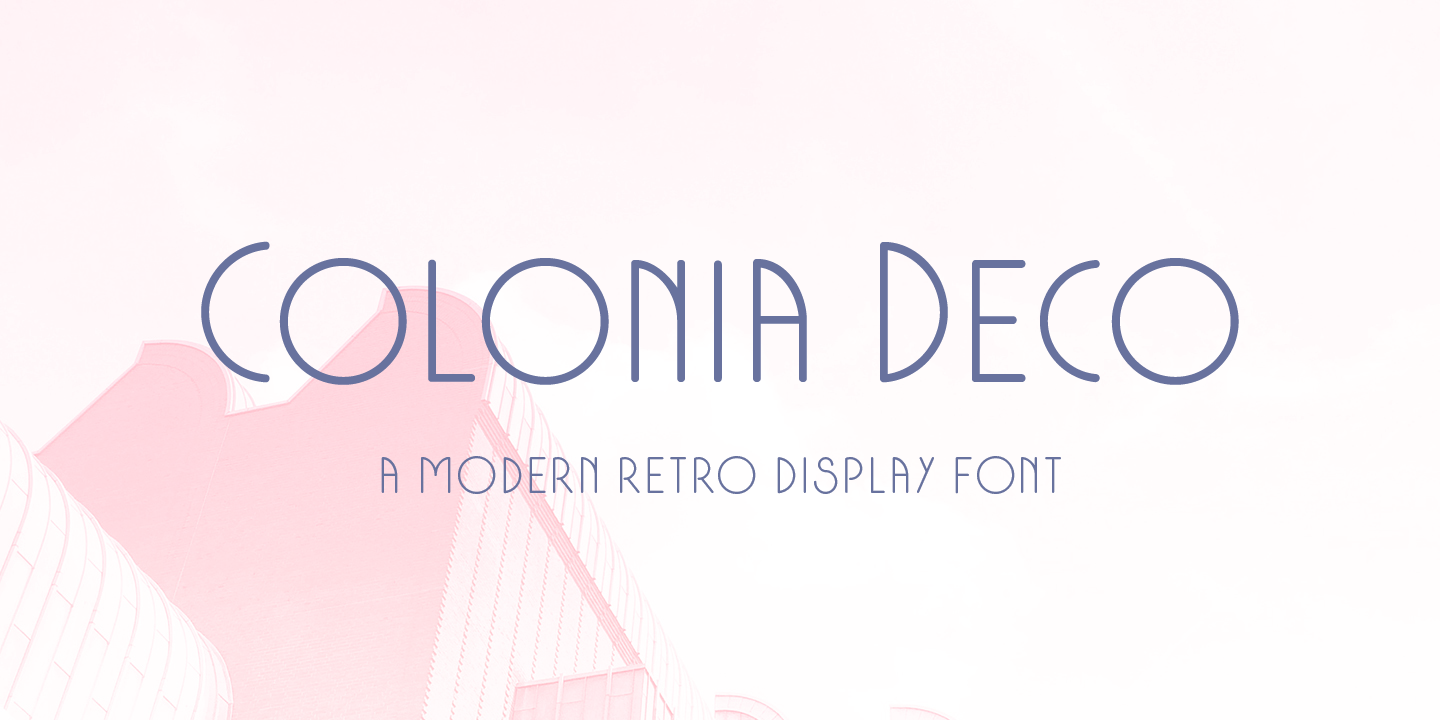
Colonia Deco Font is a sophisticated and artful display typeface that beautifully captures the geometric elegance and luxurious flair of the Art Deco era. Its distinctive, often stylized letterforms and refined character make it an exceptional choice for projects aiming to convey vintage glamour, urban sophistication, and timeless design. Imagine it perfect for high-end fashion branding, classic cocktail bar menus, vintage movie posters, elegant event invitations, luxurious product packaging, or striking headlines for design and lifestyle publications. This font excels in environments where a sense of historical artistry, polished elegance, and an unmistakable upscale aesthetic are paramount. It’s particularly effective for conveying class, opulence, and a unique sense of period charm, ensuring your message not only stands out but also resonates with an irresistible grace and historical depth.
What makes Colonia Deco Font truly exciting is its ability to transport viewers to the roaring twenties and thirties, a time of bold architecture and groundbreaking design. It often features strong, geometric shapes, precise lines, and subtle decorative elements that give each character a unique, almost architectural quality. This font isn't just about displaying text; it's about setting a scene, infusing your designs with a sense of vibrant history and undeniable sophistication. It has a powerful ability to feel both incredibly luxurious and surprisingly versatile, making it an ideal tool for designers who want their work to convey elegance, heritage, and a truly memorable visual impact. Colonia Deco Font empowers brands and creatives to project an image that is refined, opulent, and full of timeless style.
The Colonia Deco Font family typically offers a range of options to enhance its versatility and expressive capabilities. You'll often find it available in a strong, elegant regular weight, with some versions including stylistic alternatives for certain characters or ligatures that further emphasize its decorative and geometric appearance, allowing for even more customized typographic compositions. The comprehensive character set generally covers standard Latin characters, numbers, and a selection of punctuation marks, ensuring that Colonia Deco Font Free Download is suitable for a wide variety of creative and commercial applications. Its distinctive and memorable presence ensures that any project featuring Colonia Deco Font will leave a strong, lasting impression.